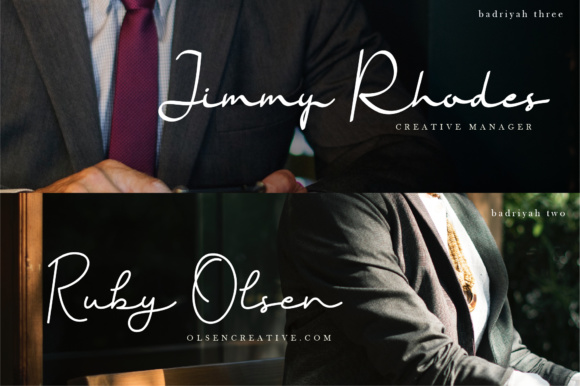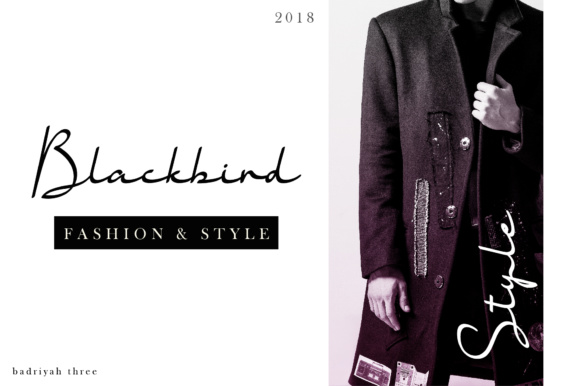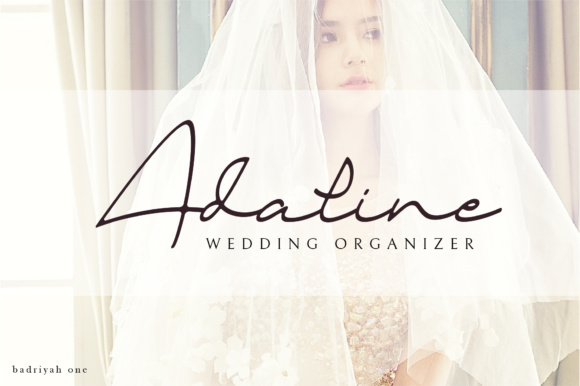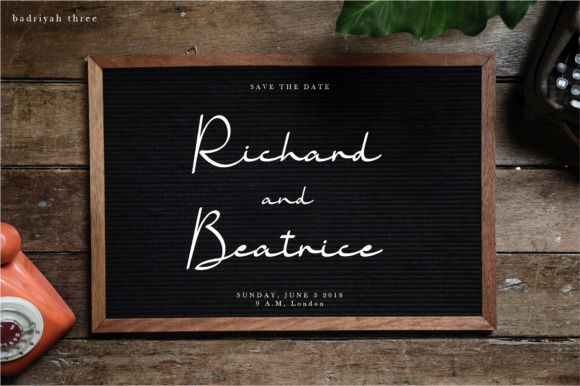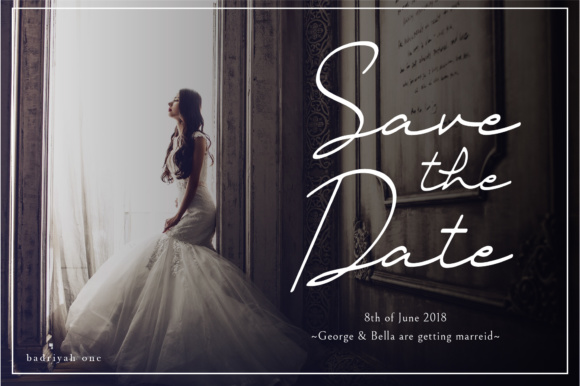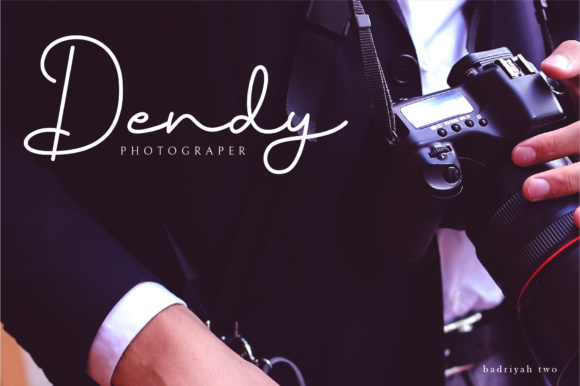
Introducing Badriyah Font: Elevate Your Designs with Elegance and Sophistication
In the world of typography, a font can make or break a design. For designers and crafters looking to add a touch of elegance and sophistication to their projects, Badriyah Font is an exceptional choice. This beautiful and classy handwritten font is perfect for use in signatures and logotype projects, offering a level of refinement that’s hard to match.
What Makes Badriyah Font Stand Out?
Badriyah Font boasts a unique blend of classic charm and modern appeal. Its elegant strokes and refined lettering make it an ideal choice for designers seeking to create visually stunning designs. Whether you’re working on a logo, signature, or any other project that requires a touch of sophistication, Badriyah Font is sure to impress.
Three Versatile Versions at Your Disposal
One of the standout features of Badriyah Font is that it comes in three different versions. This versatility allows designers to experiment with various styles and create compelling, unique designs that cater to their specific needs. With Badriyah Font, you can:
- Create a bold and statement-making design with one version
- Add a touch of subtlety and elegance with another version
- Experiment with a third version to create a design that’s truly one-of-a-kind
Badriyah Font’s versatility extends beyond its three versions. Its elegant and refined nature makes it suitable for a wide range of design projects, including:
- Signatures and stationery
- Packaging and labeling
Why Choose Badriyah Font?
With so many fonts available, why choose Badriyah Font? Here are just a few compelling reasons:
- Elegance and sophistication: Badriyah Font brings a level of refinement to your designs that’s hard to match
- Versatility: With three different versions, you can experiment with various styles and create unique designs
- Ease of use: Badriyah Font is easy to read and works well in a variety of contexts
- Timeless appeal: Unlike trendy fonts that quickly go out of style, Badriyah Font has a timeless quality that ensures your designs will remain elegant and sophisticated for years to come
Tips for Getting the Most Out of Badriyah Font
To maximize the impact of Badriyah Font, consider the following tips:
- Experiment with different versions: Don’t be afraid to try out different versions of Badriyah Font to find the one that works best for your project
- Pair with complementary fonts: Combine Badriyah Font with other fonts that complement its elegant and refined nature
- Pay attention to spacing and kerning: Make sure to adjust the spacing and kerning to ensure your text looks polished and professional
Badriyah Font is a beautiful and classy handwritten font that’s perfect for designers and crafters looking to add a touch of elegance and sophistication to their projects. With its three different versions, versatility, and timeless appeal, Badriyah Font is an exceptional choice for a wide range of design projects. Whether you’re working on a logo, signature, or any other project, Badriyah Font is sure to elevate your designs to new heights.